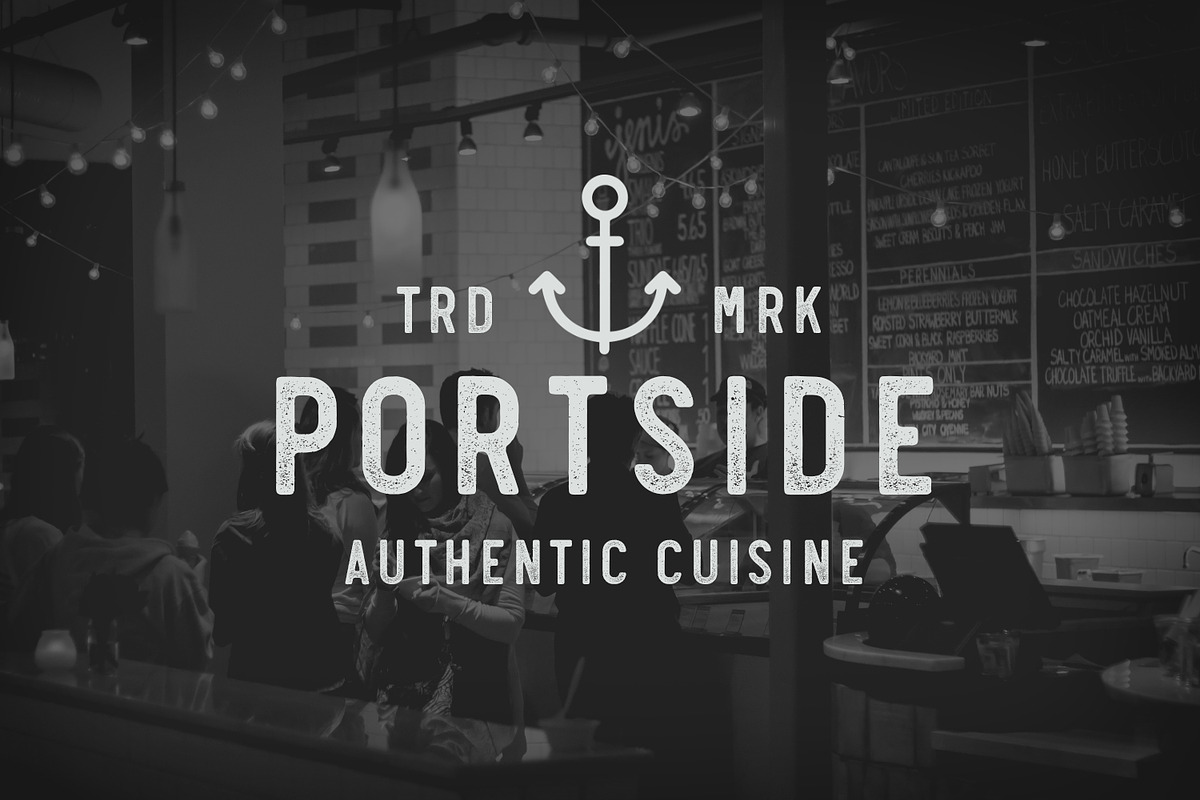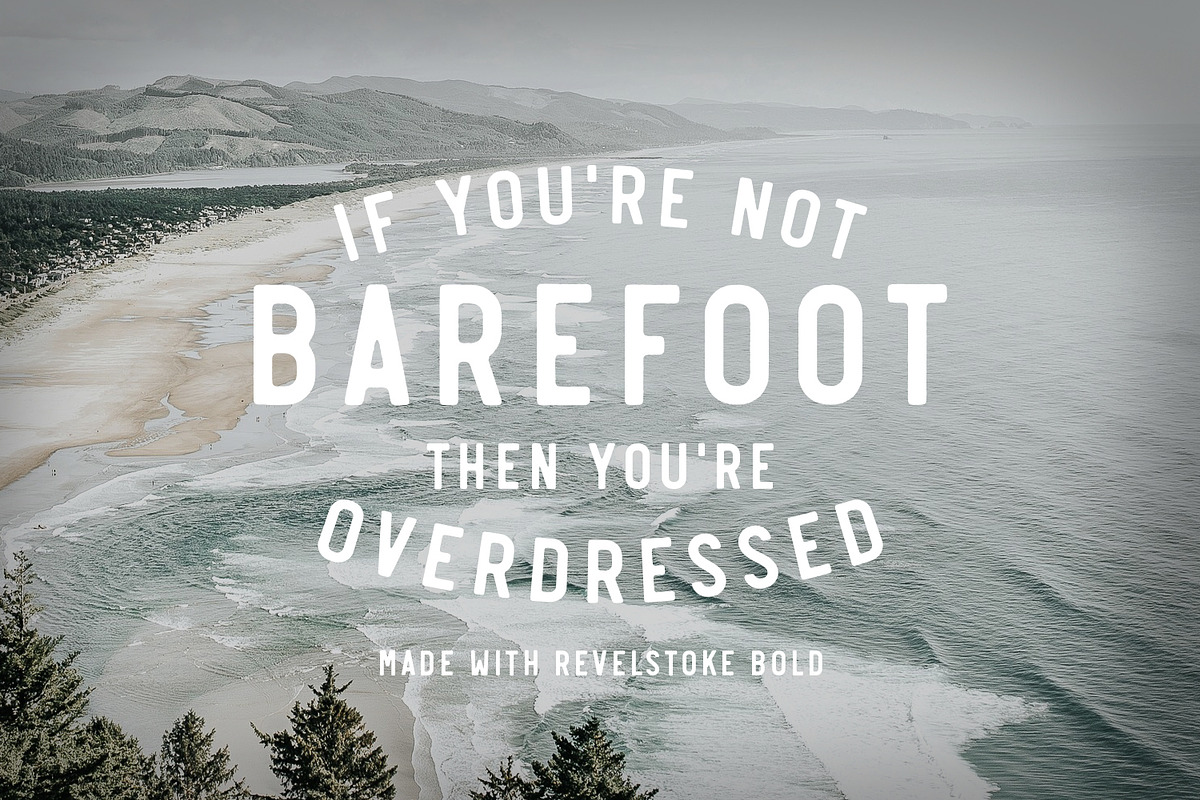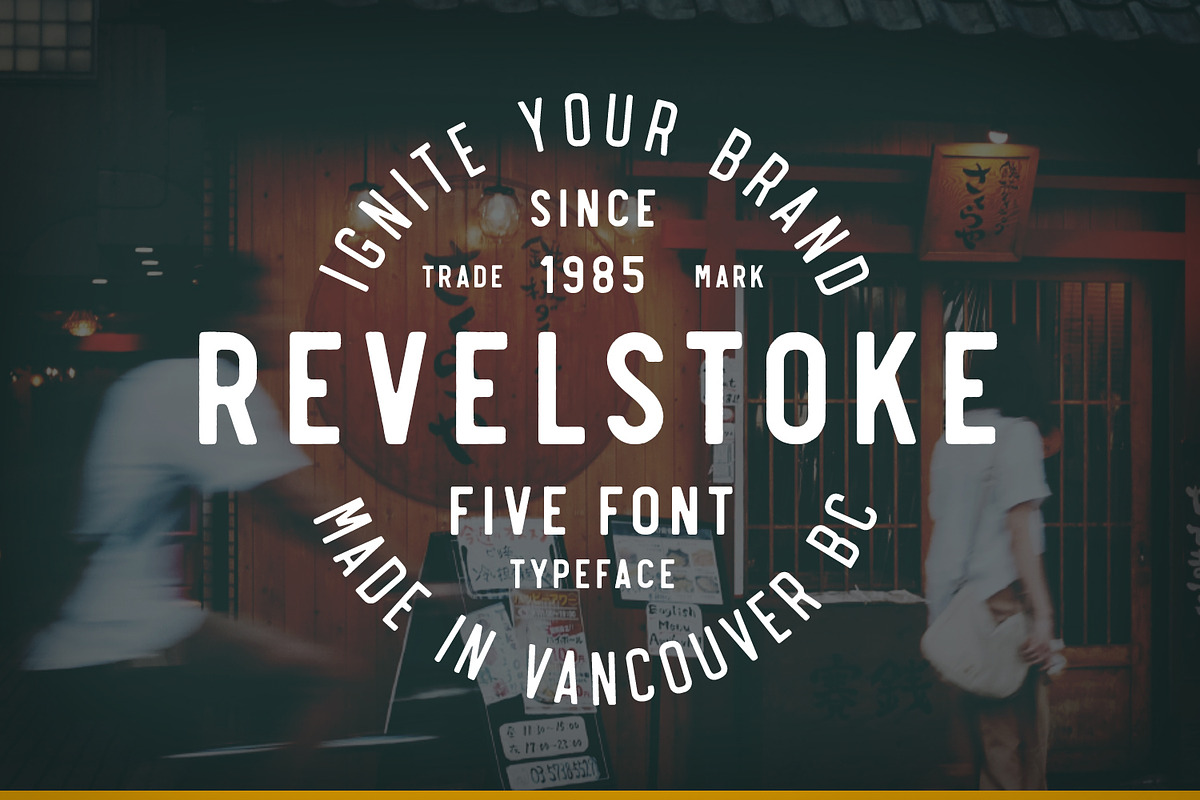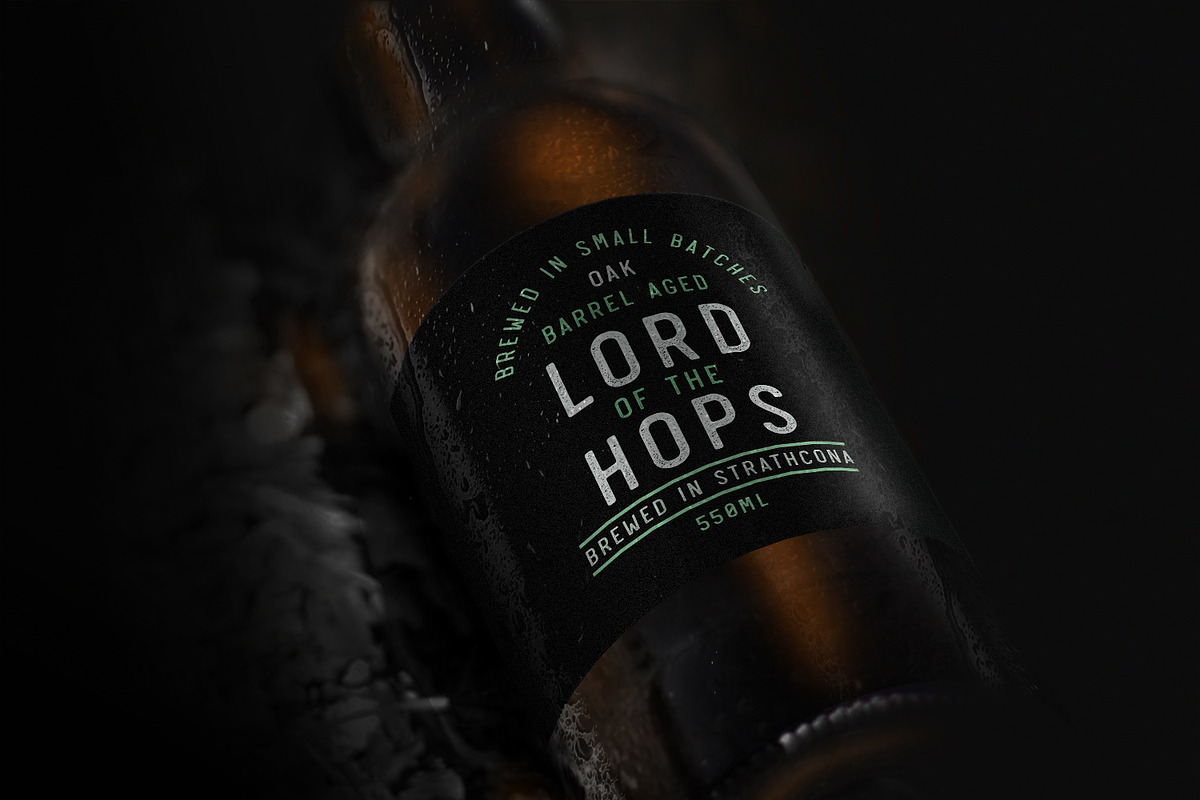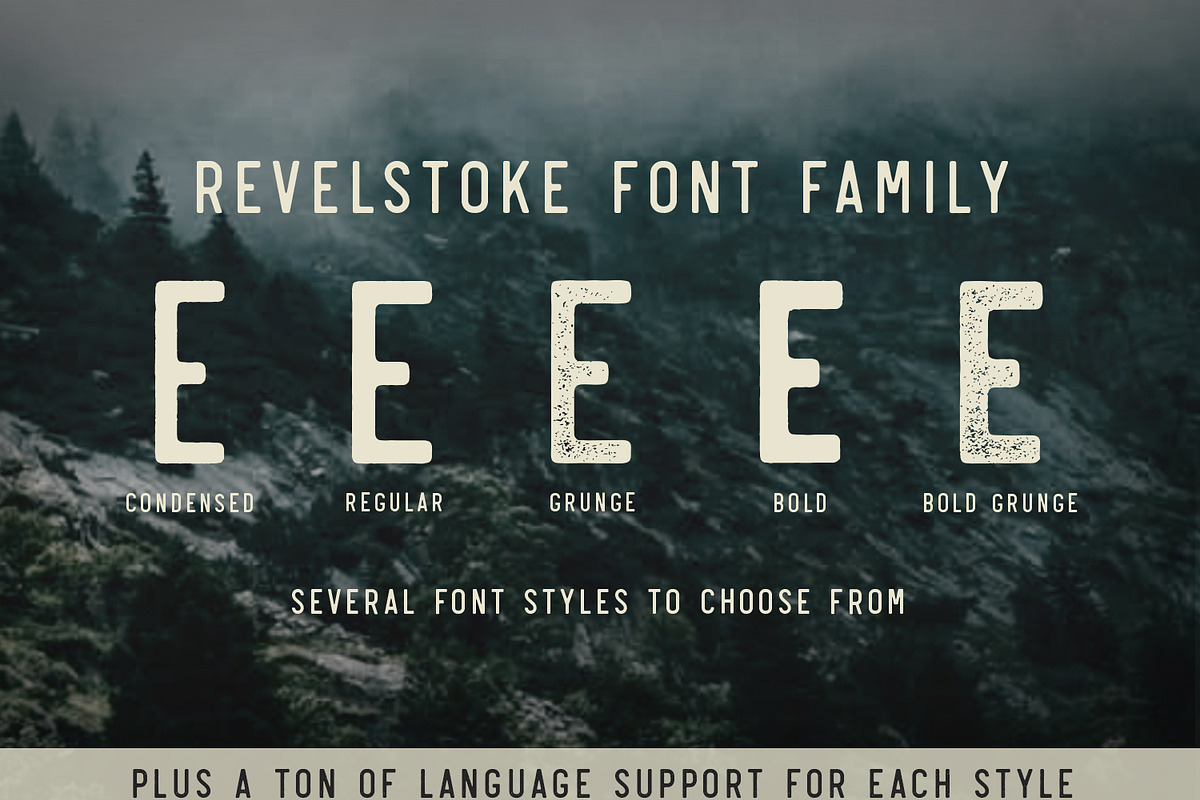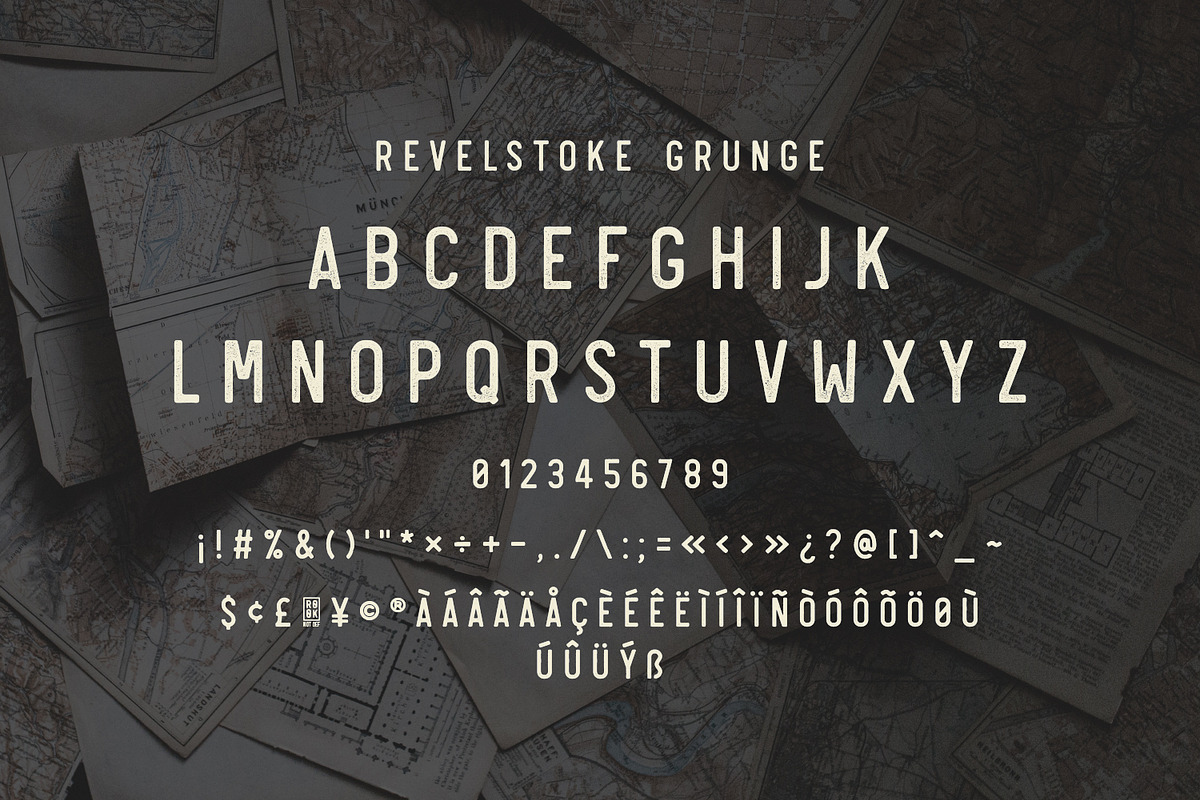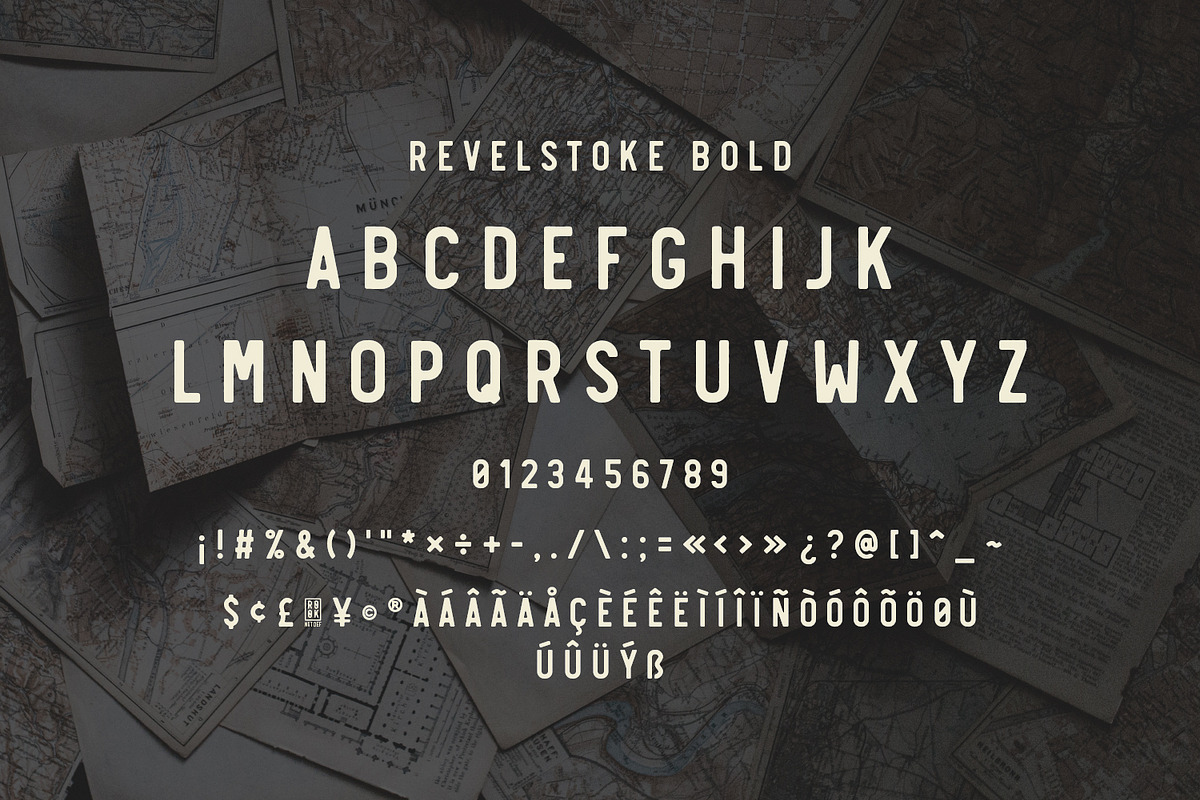
Revelstoke - 5 Font Family
Revelstoke - 5 Font Family by Greg Nicholls is a font selected for branding, posters, packaging, typography.
- Rounded edges and imperfections were added to the characters to give that old school printing vibe.
- Revelstoke Regular
- Revelstoke Bold
- Revelstoke Bold Grunge
- Revelstoke Condensed
- Revelstoke Grunge
Why Revelstoke - 5 Font Family is worth a look
Revelstoke - 5 Font Family by Greg Nicholls fits naturally into Branding, posters, packaging, typography.